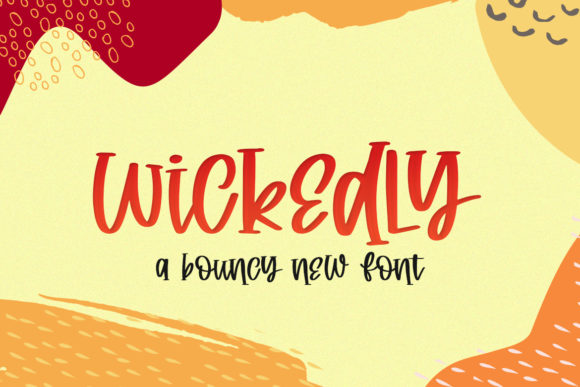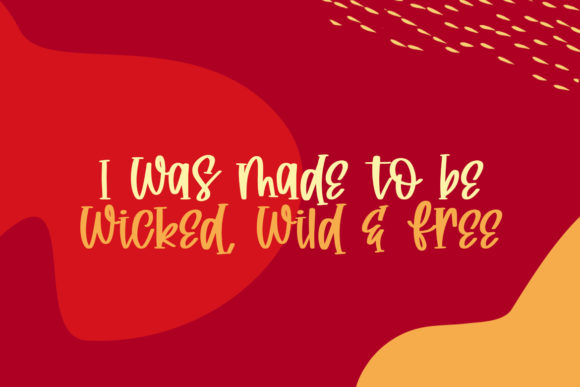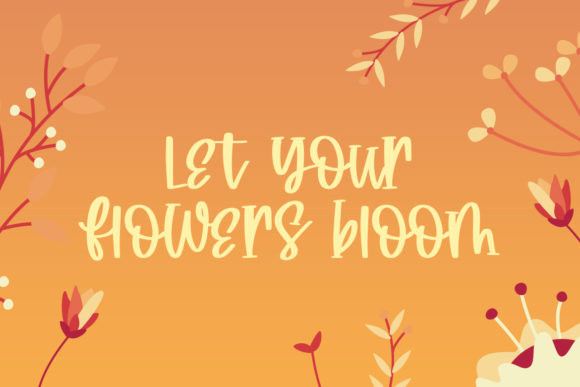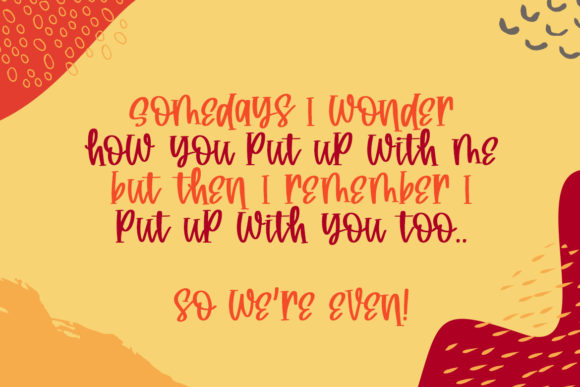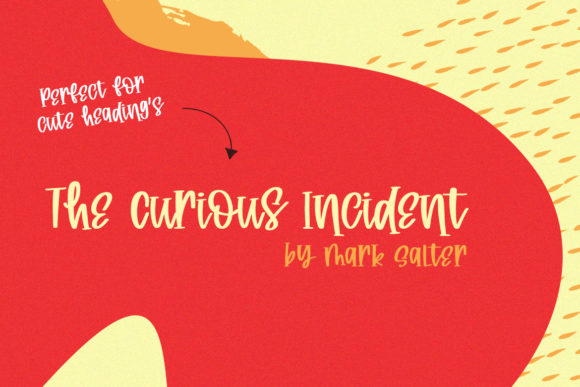
Wickedly Font
About Wickedly Font
Wickedly is a casual and cute handwritten font. Clean and a little bit quirky, this font is the perfect fit for all of your logos, branding, social media, and crafty DIY projects.